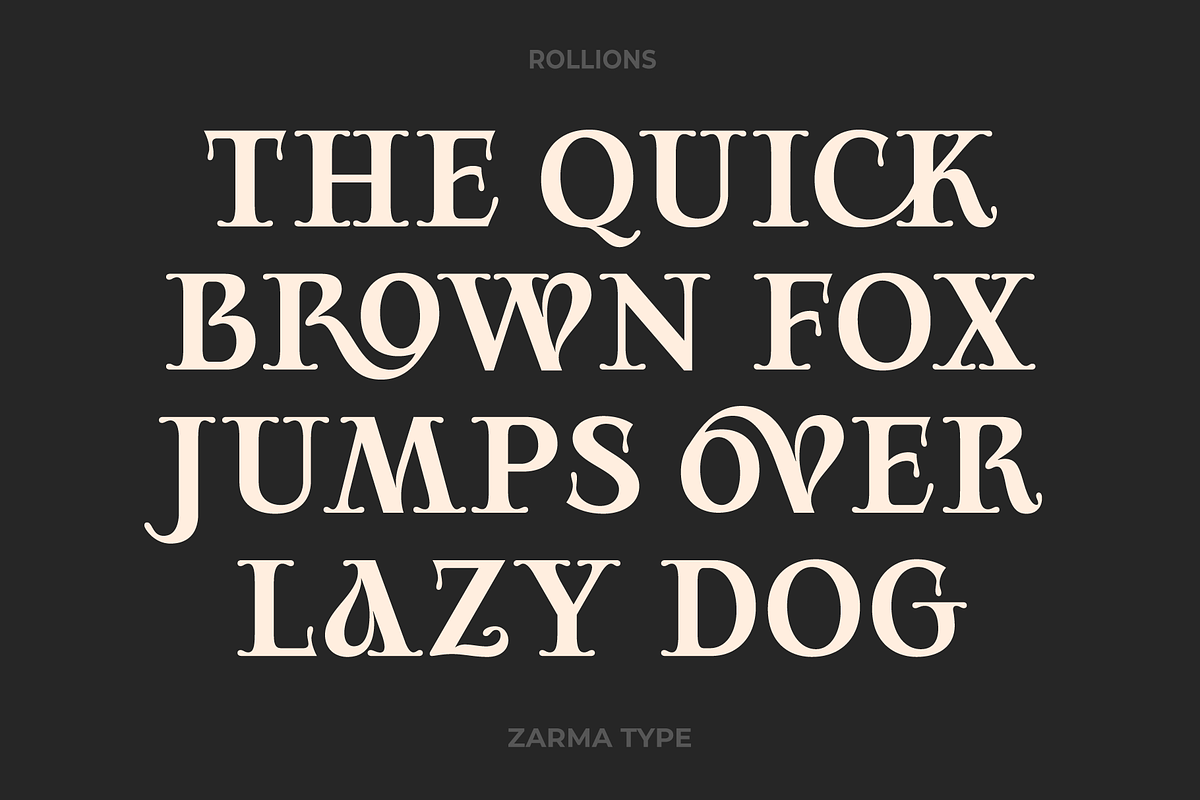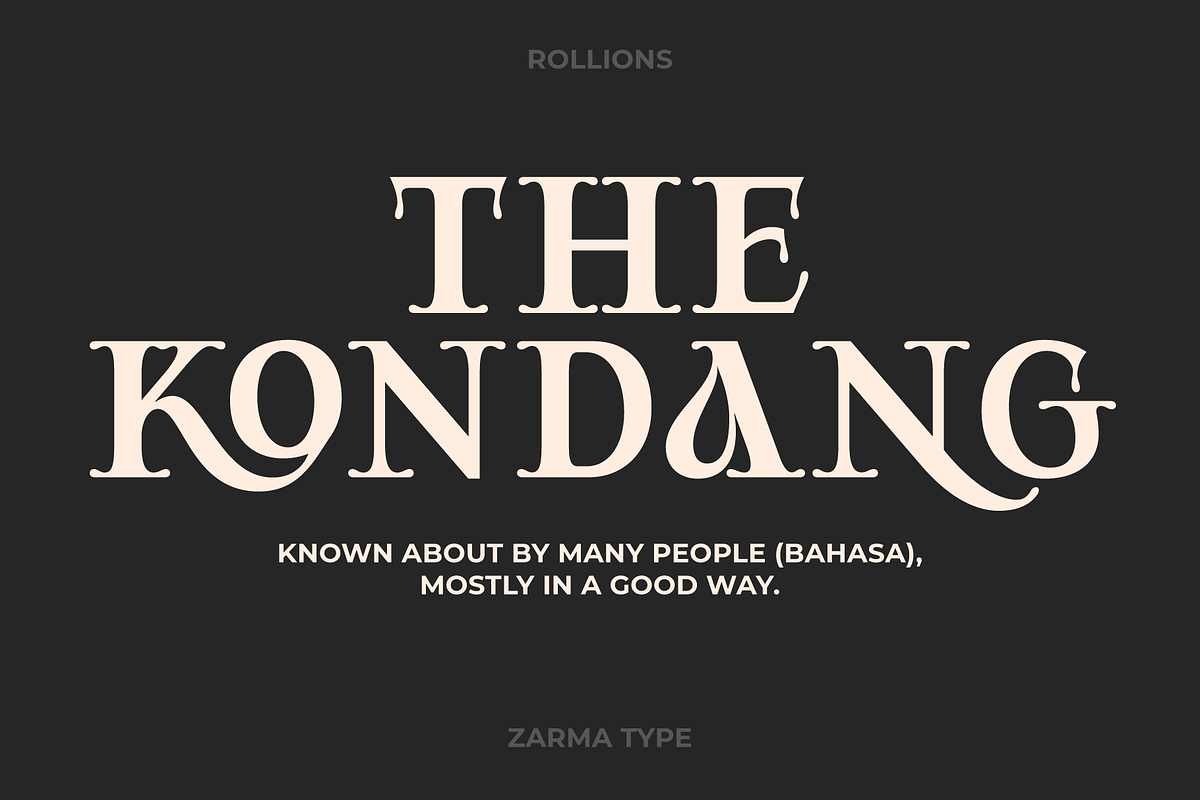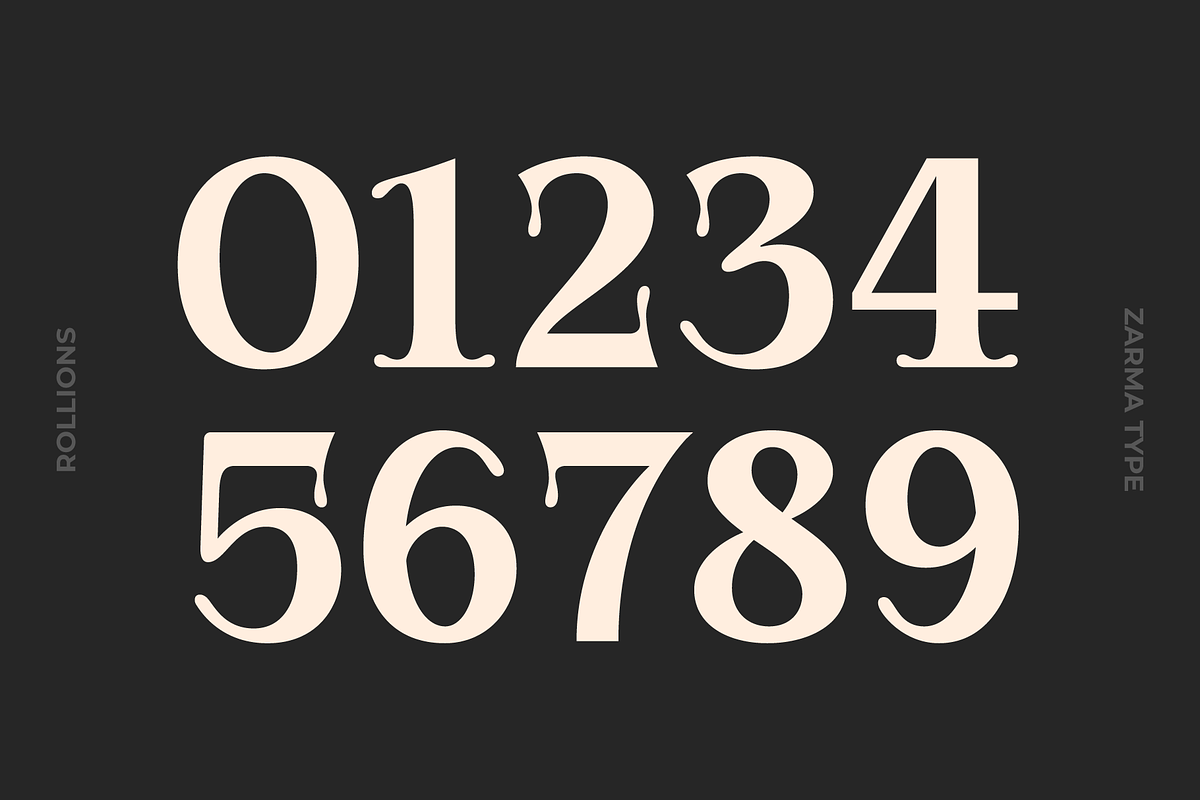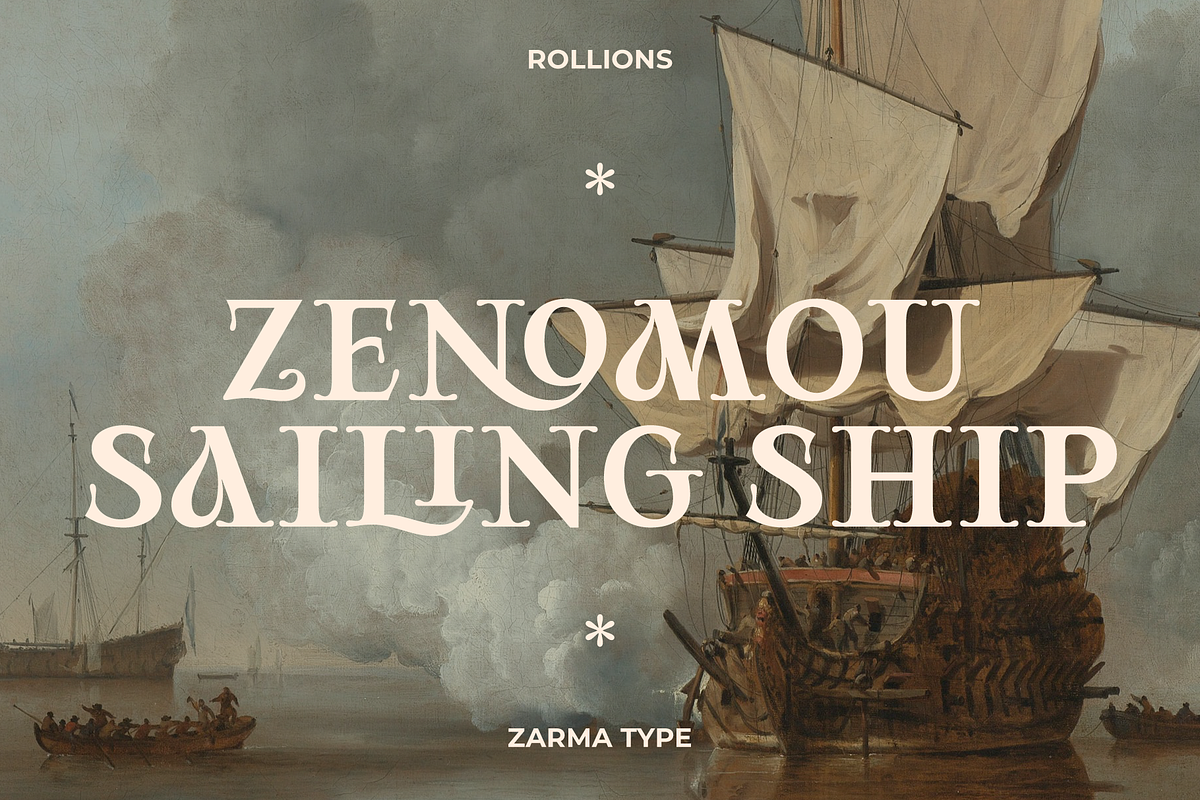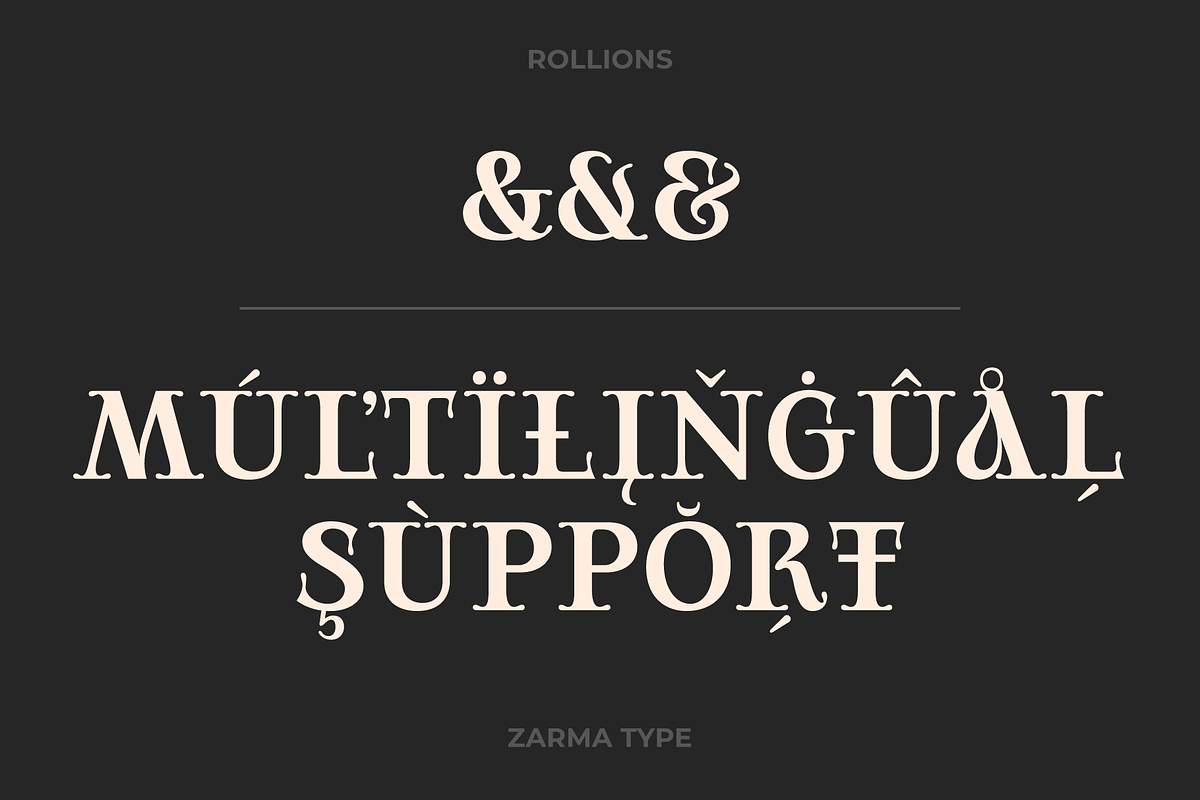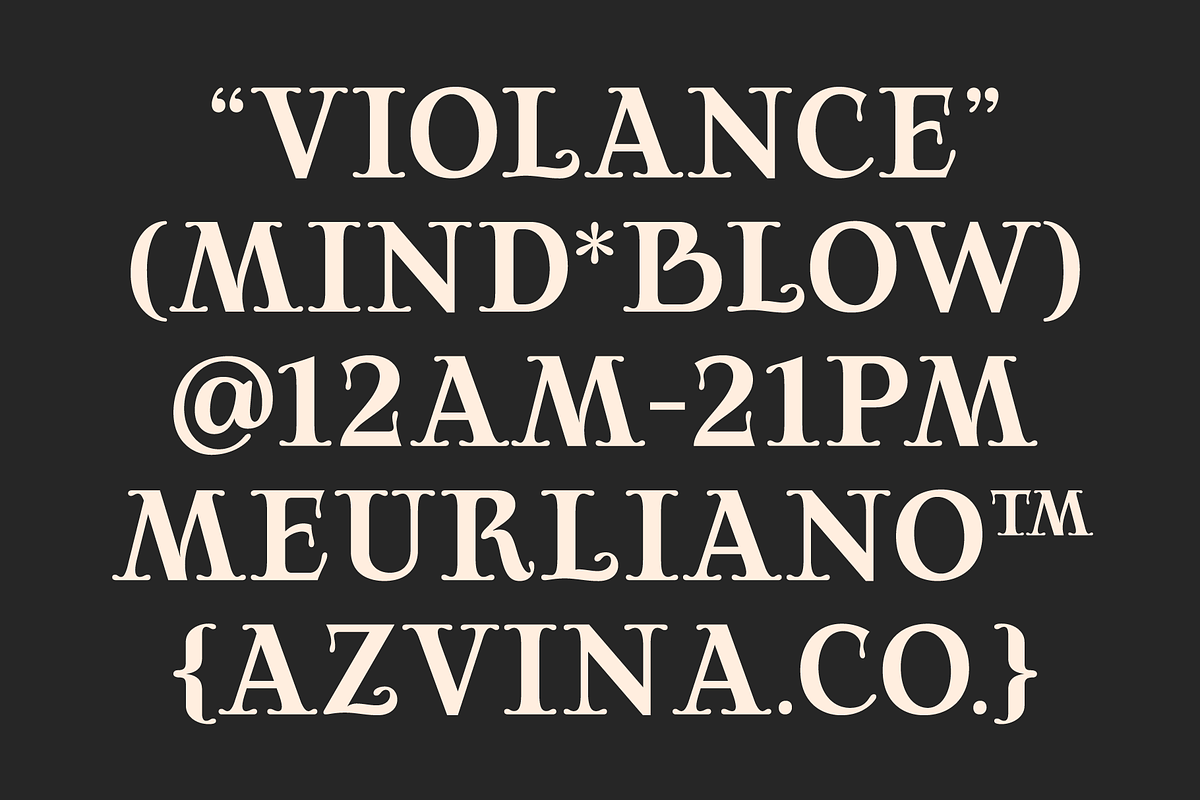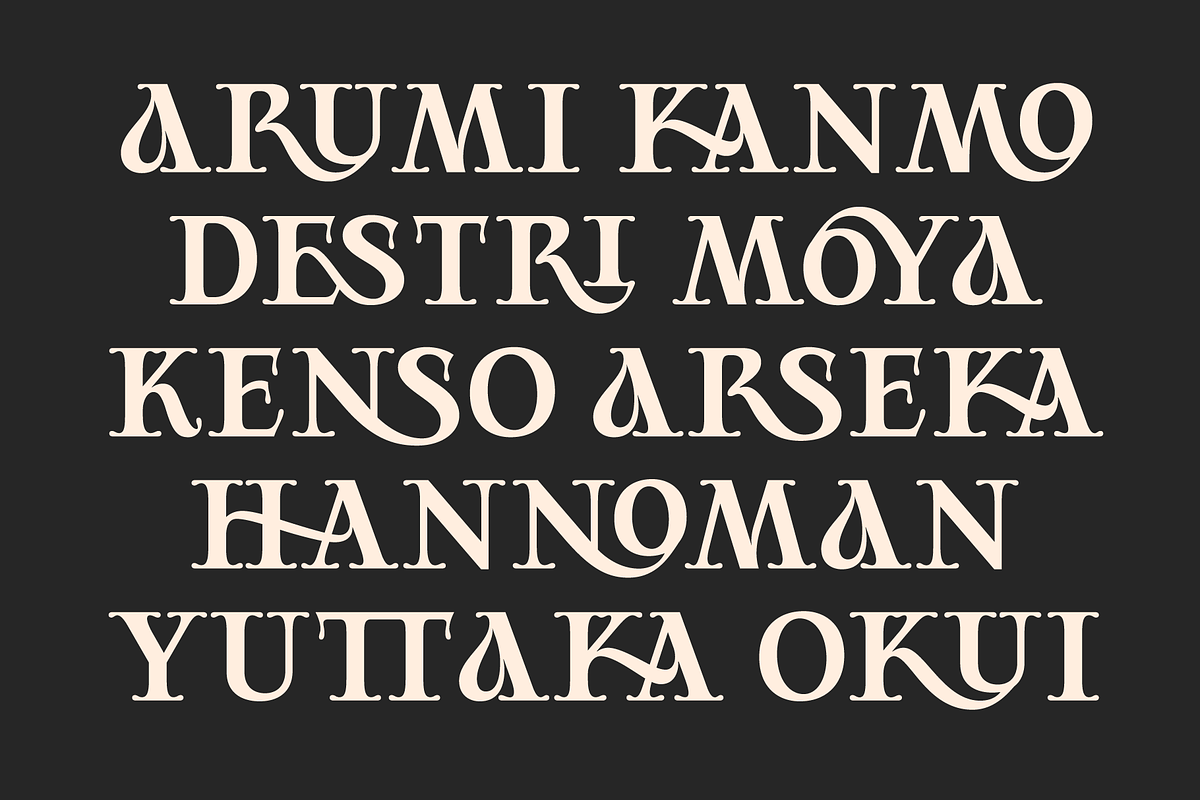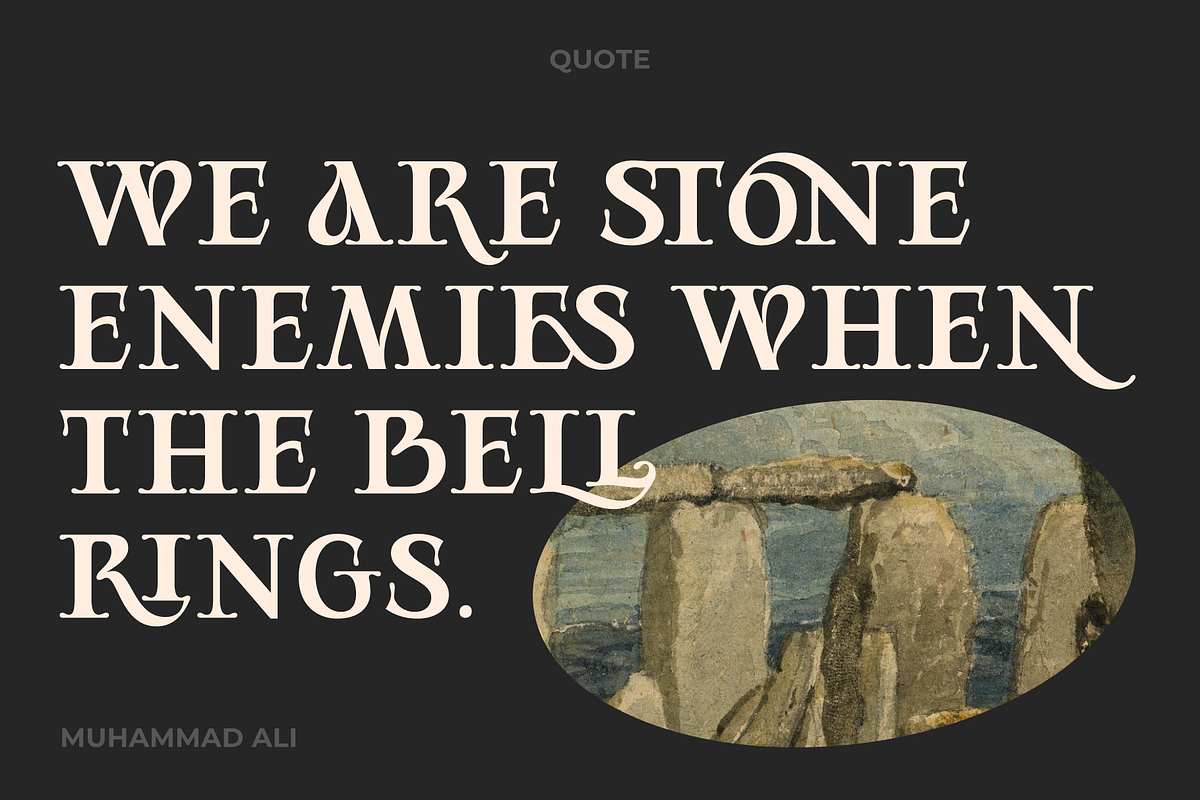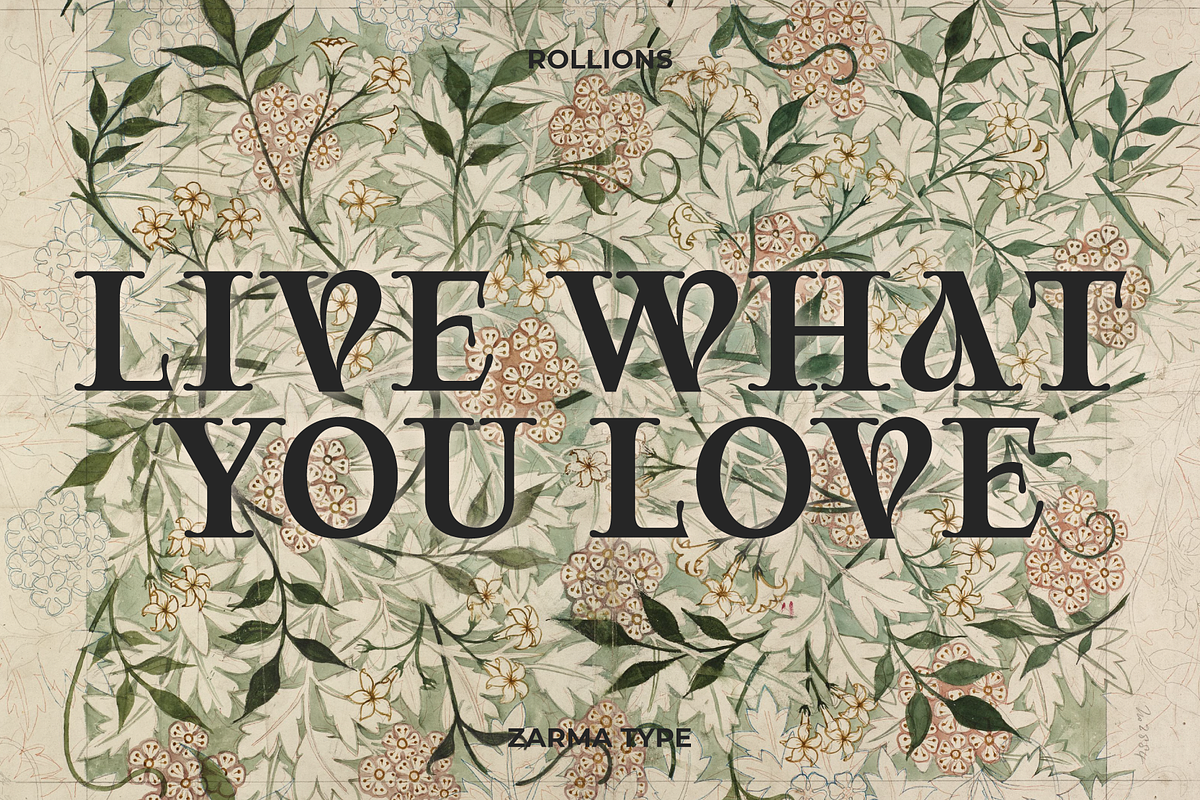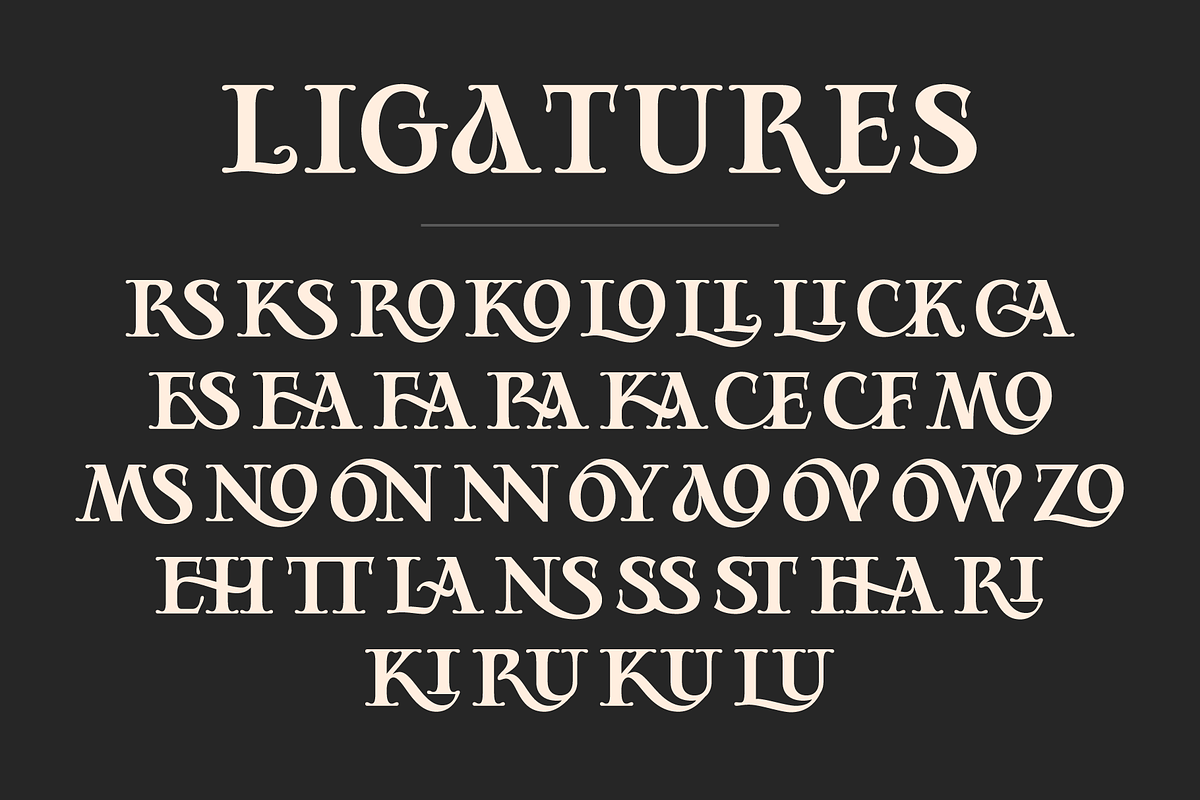
Rollions - Display Serif Font
Introducing Rollions, an unique All-Caps display serif typeface with beautiful rounded serif. This font have a Stylistic Sets, Discretionary Ligatures and Multilingual support which adds to the aesthetic that makes your work more interesting. Use this beautiful serif as a memorable logotype or header and pair it with something contrasting and clean.